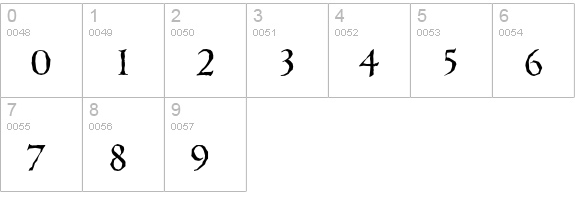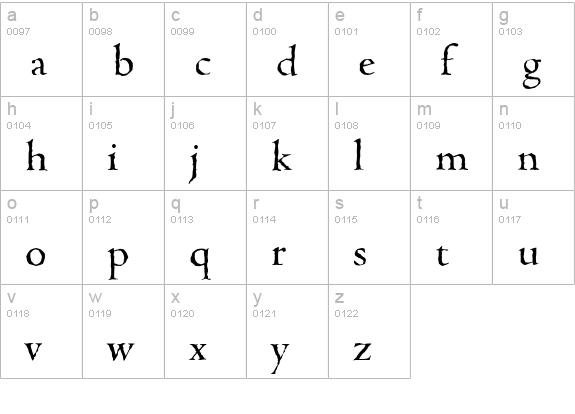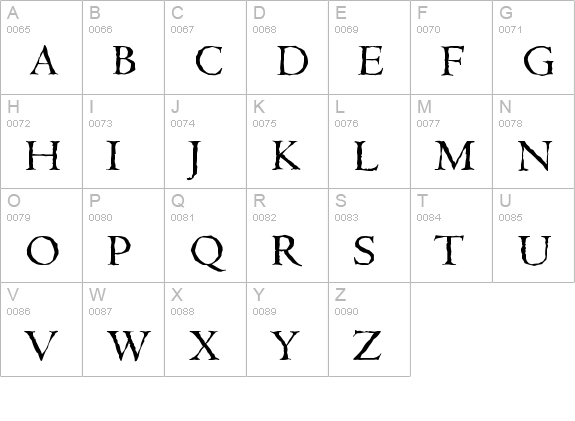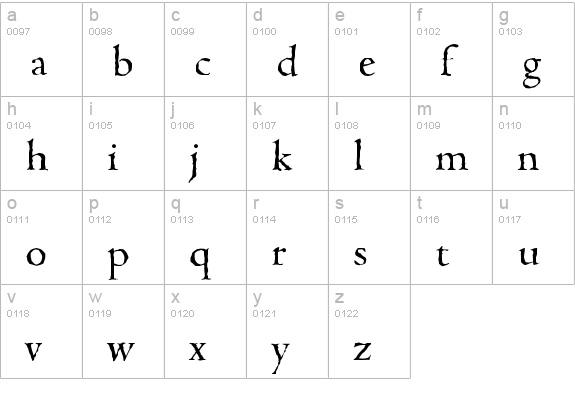
CambridgeAntique-Regular is the standard, neutral variant in the CambridgeAntique typeface family \xE2\x80\x94 well suited to general body text, paragraphs, and standard typographic work.
CambridgeAntique-Regular is a timeless and elegant serif font that exudes sophistication and charm. With its classic and refined design, this font is perfect for adding a touch of vintage style to your projects. The graceful curves and intricate details of CambridgeAntique-Regular make it a versatile choice for a wide range of design applications, from invitations to branding and more. Best of all, CambridgeAntique-Regular is available for free download at FontsMarket.com. This means you can easily access this exquisite font and enhance your designs with its beauty and grace without any cost. Don't miss out on the opportunity to elevate your projects with the timeless appeal of CambridgeAntique-Regular - download it today and add a touch of elegance to your work.